Behind the Scenes in Typeface Creation: Checking Font with Red Pencil 04: “Raise, Lay Down, and OK”
In checking with red pencil, each stroke of character is checked carefully. While “W, S, C, <, and > <” introduced in the previous articles are usually written for the entire character, radicals, etc., “raise and lay down” in red pencil is written for the strokes in many cases.
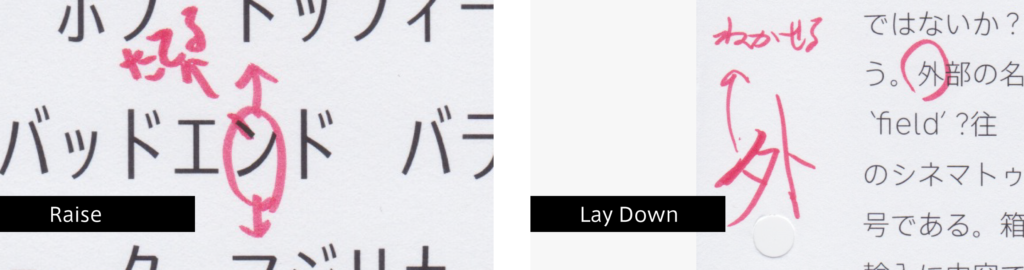
“Raise” means “make the angle vertically closer,” and “Lay down” means “make the angle horizontally closer.“ To what degree the angle is changed is judged after looking at the balance with other characters.
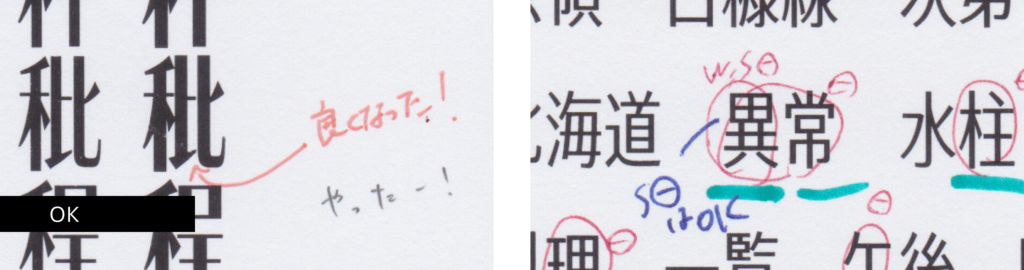
Out of necessity, there are many correction instructions. However, there are affirmative writings, such as “OK.” Making the glyph with OK as a basis, the other glyphs may be corrected. In addition, OK is also used for the case such as, “S- correction is OK, so keep the size as is, but try once again for W-.” Not only the correction points but also the characters in good condition are mutually recognized among the project members, which can make creation smoother. Additionally, I’m certainly happy when I receive praise.
That’s all for the introduction of checking with red pencil.